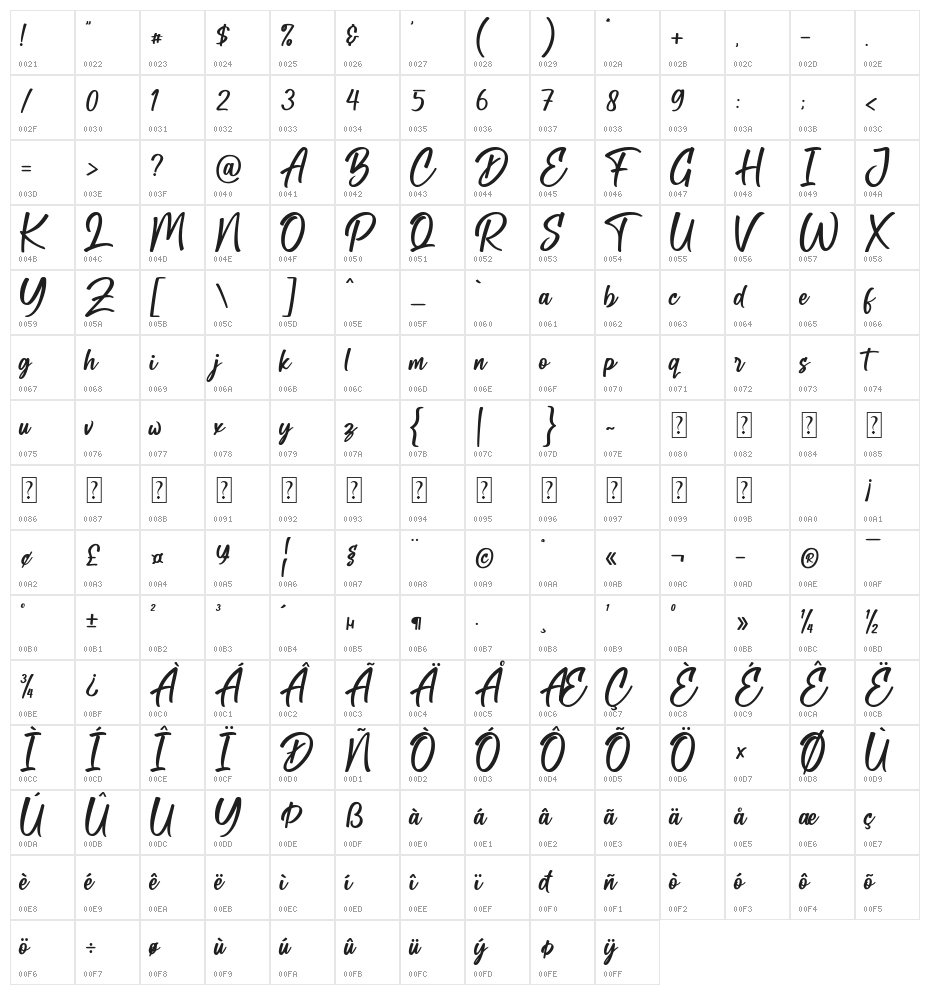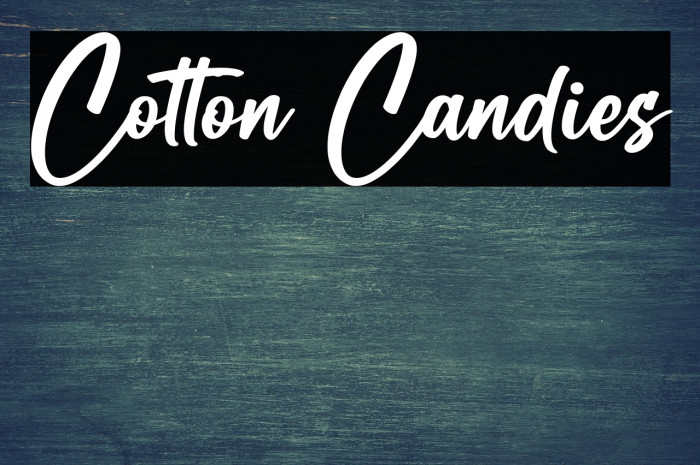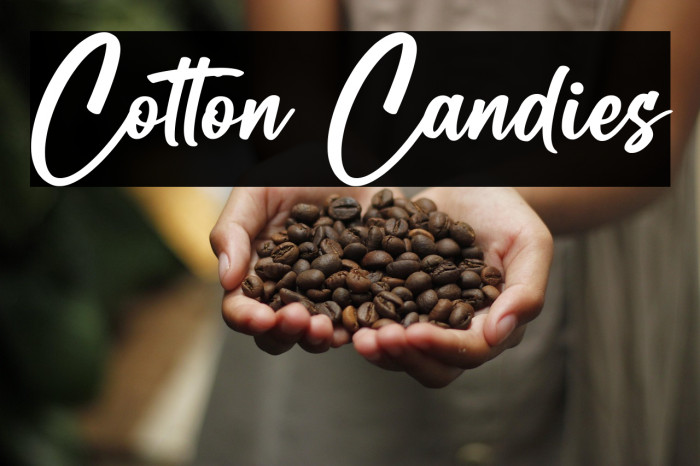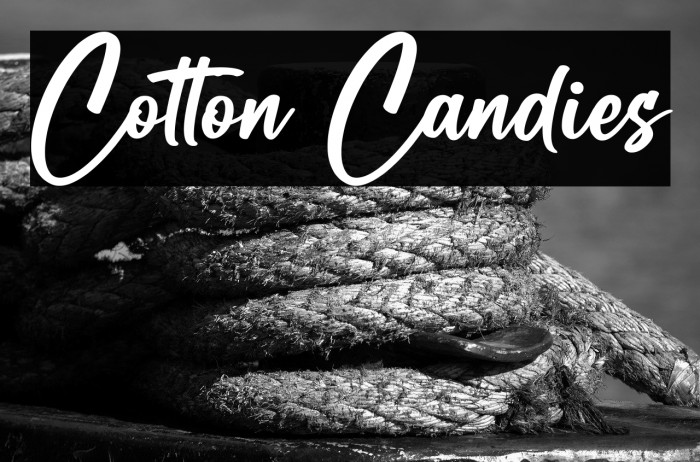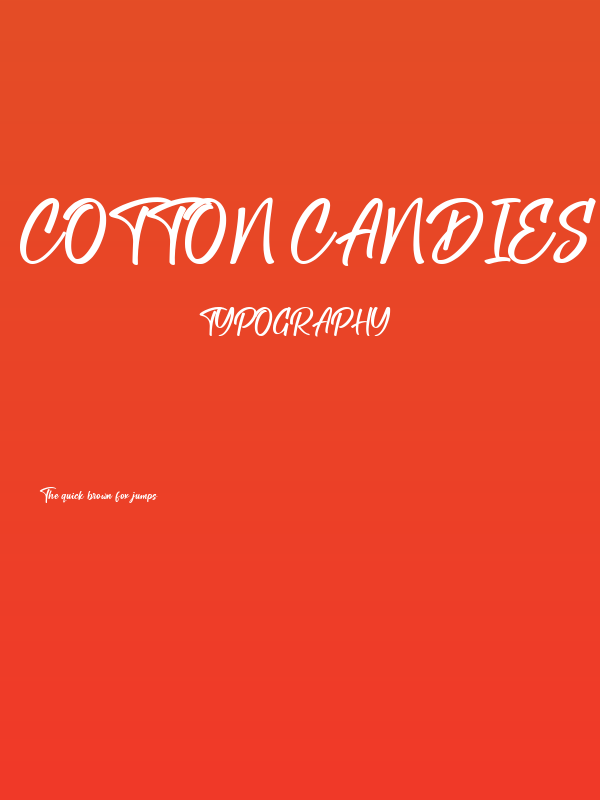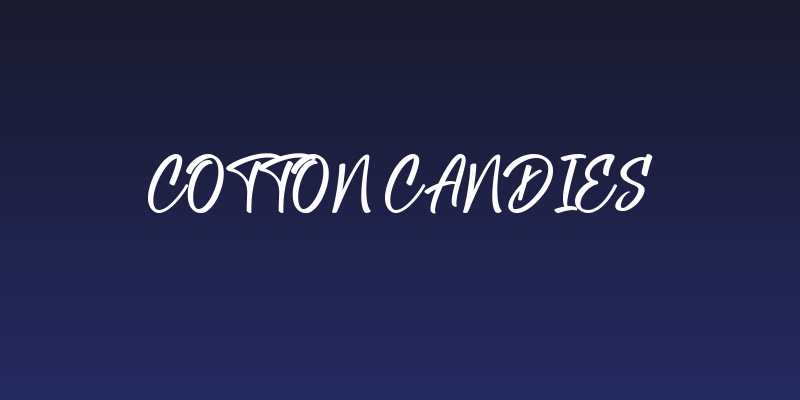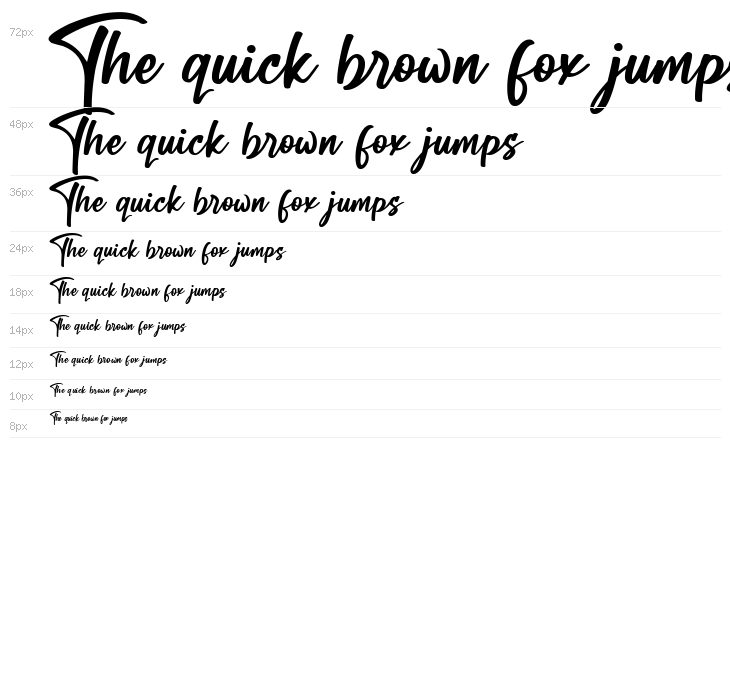
Cotton Candies Font
Cotton Candies Description
This font exudes a playful and energetic vibe with its bold, flowing script style. The characters are crafted with a smooth, continuous stroke that mimics the fluidity of handwriting, giving it a personal and informal touch. The uppercase letters are slightly more structured, while the lowercase letters maintain a casual, relaxed appearance. The numbers and special characters follow the same lively and dynamic design, ensuring consistency across all elements. This font is perfect for projects that require a touch of whimsy and creativity, such as invitations, greeting cards, and branding for playful or youthful products.
Overall StylePlayful
Use CaseLogos, Headlines, Invitations
Proposed ProjectsIdeal for invitations, greeting cards, playful branding, and creative projects.